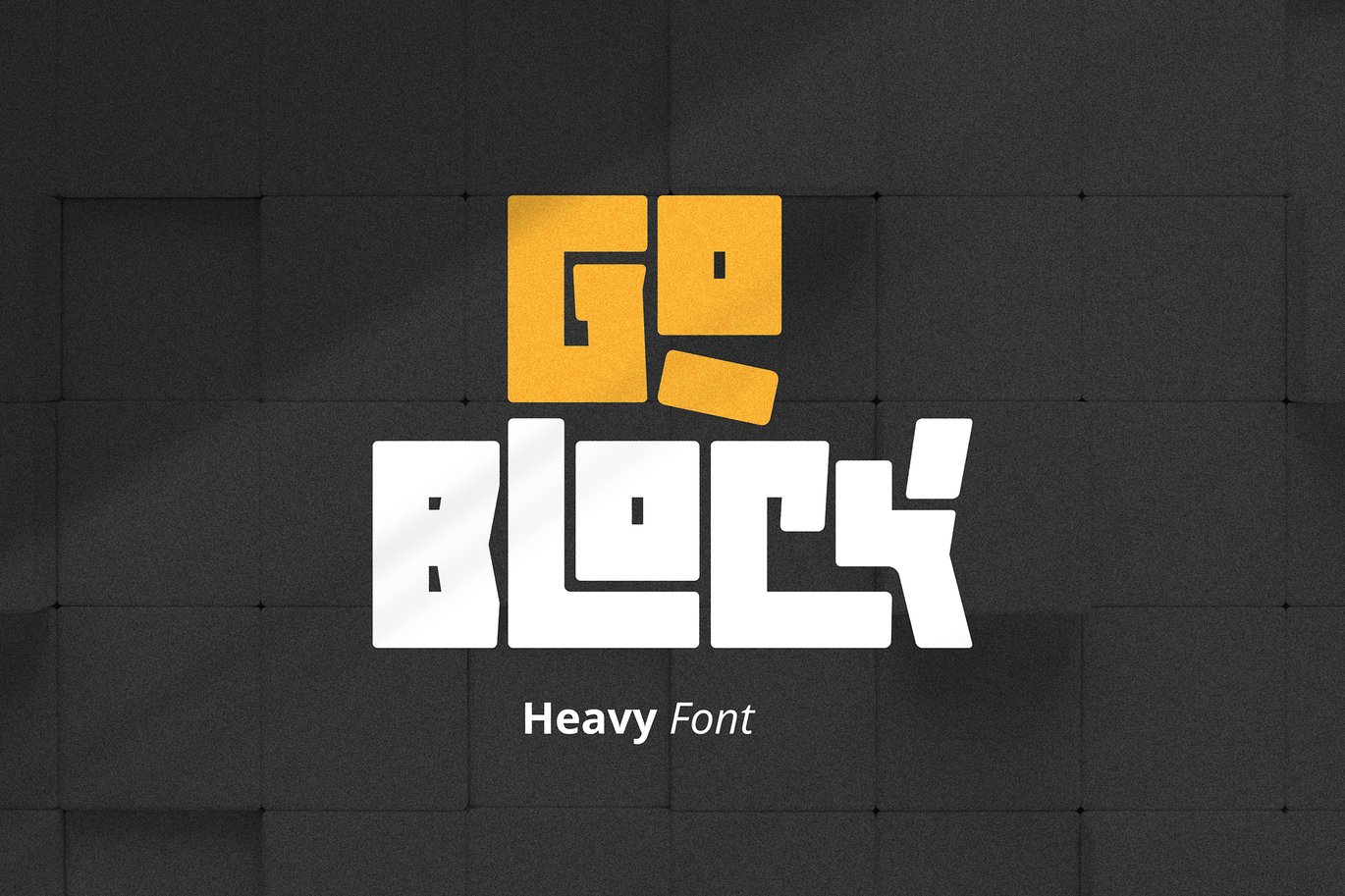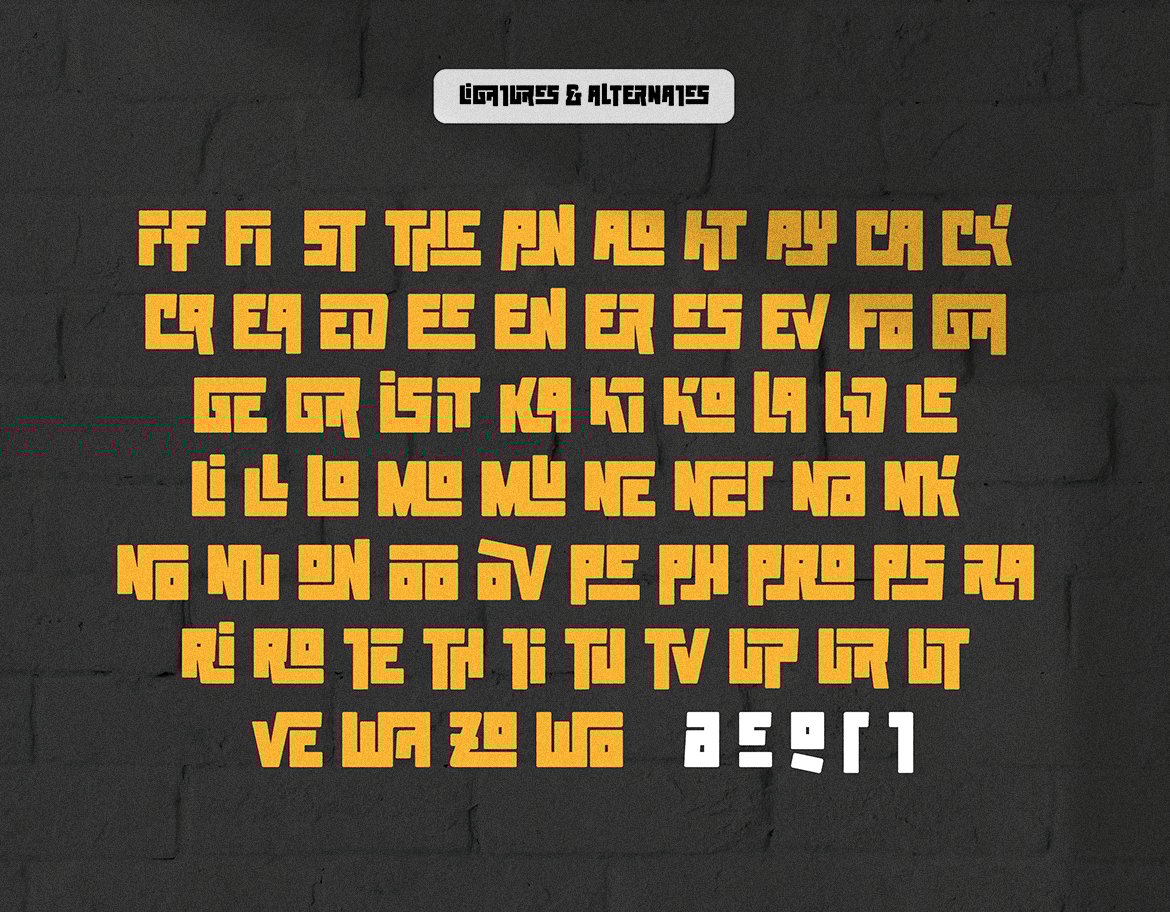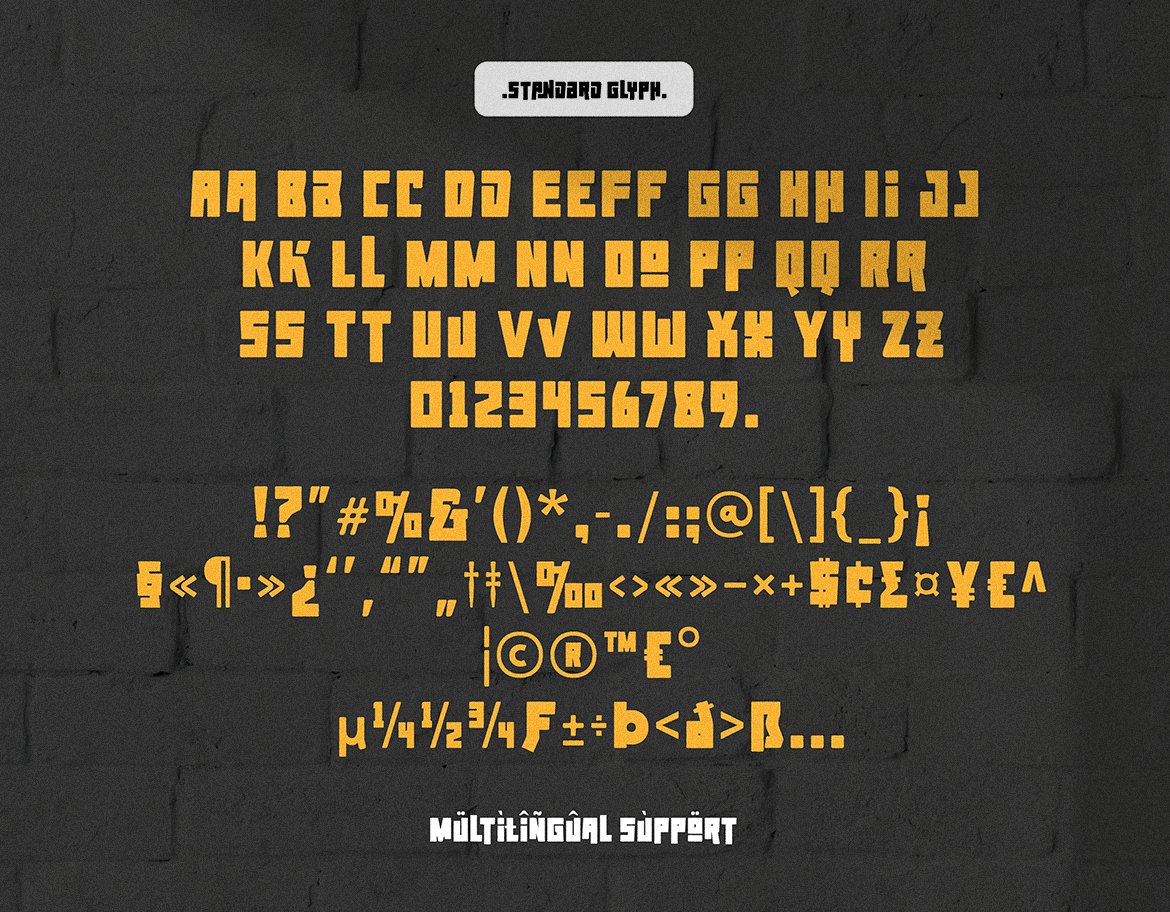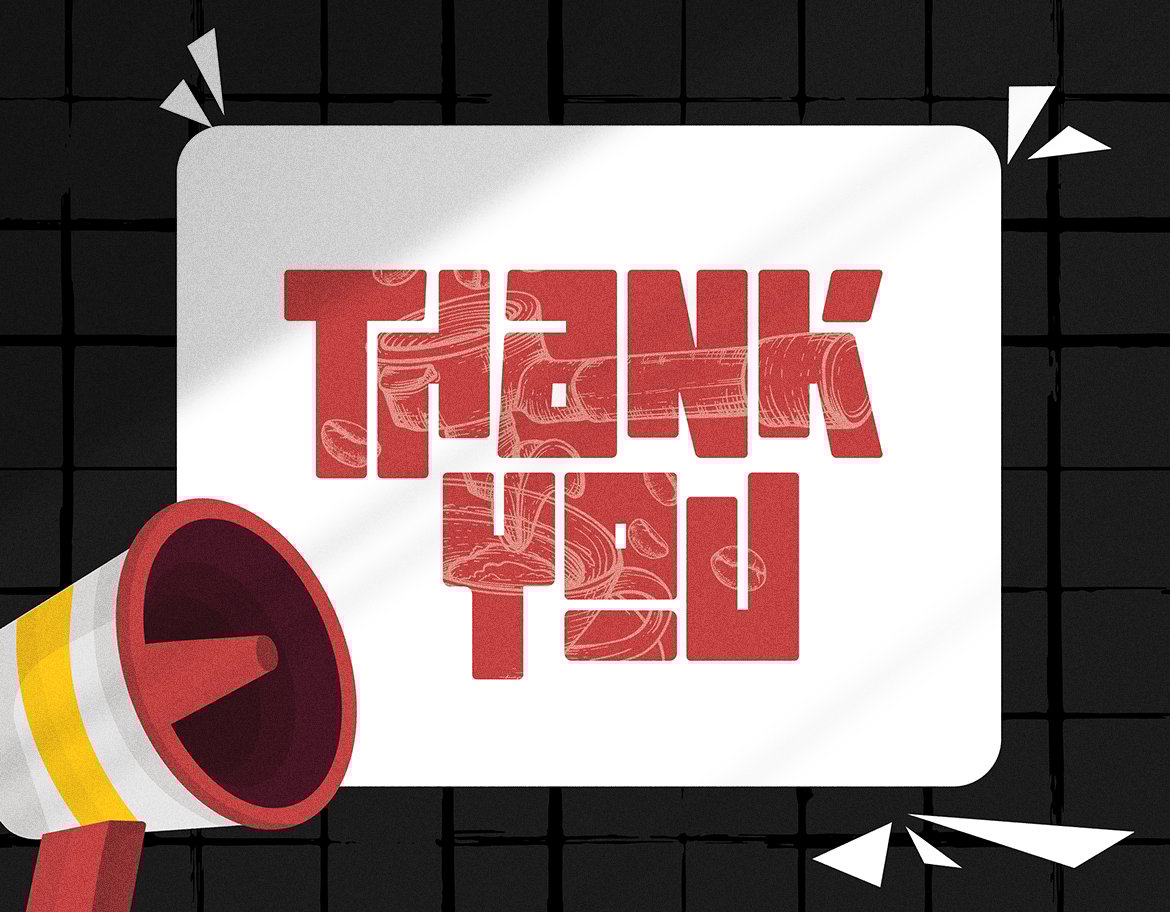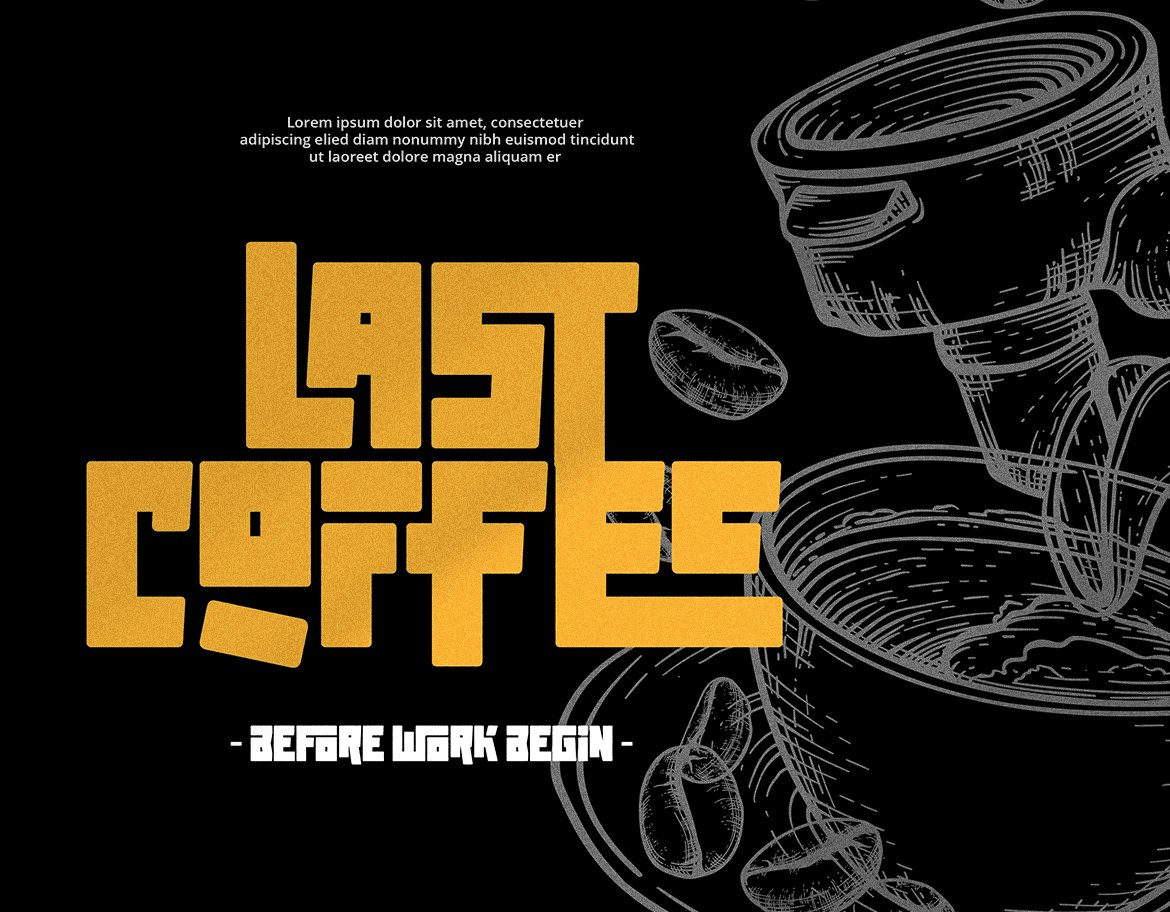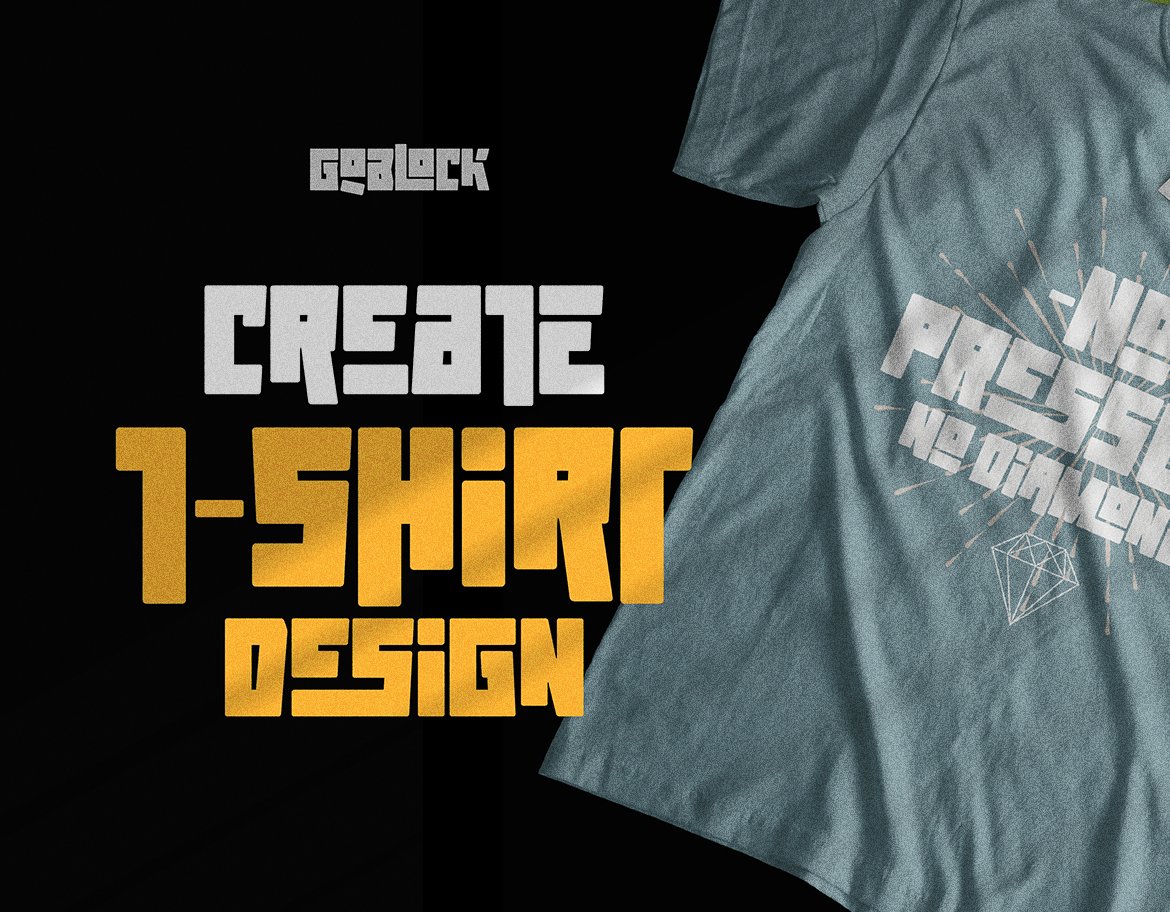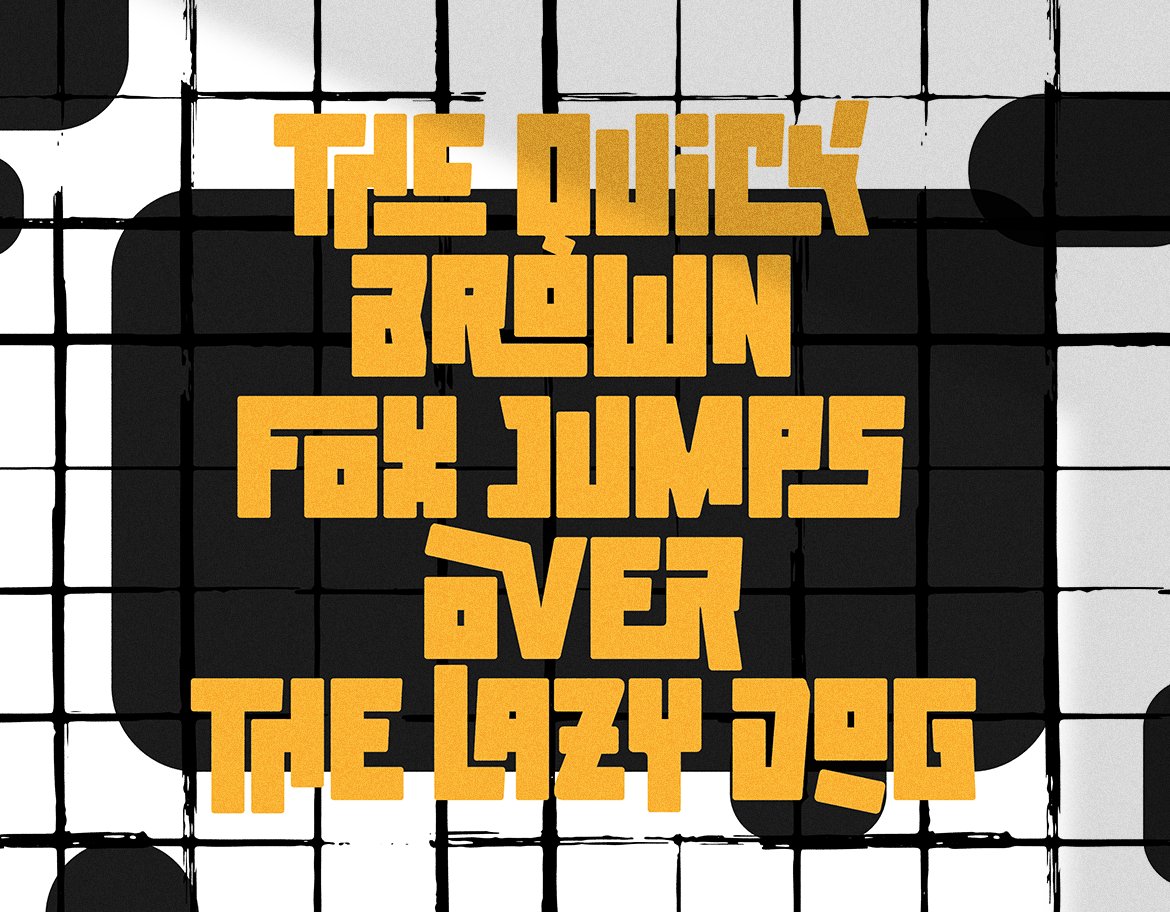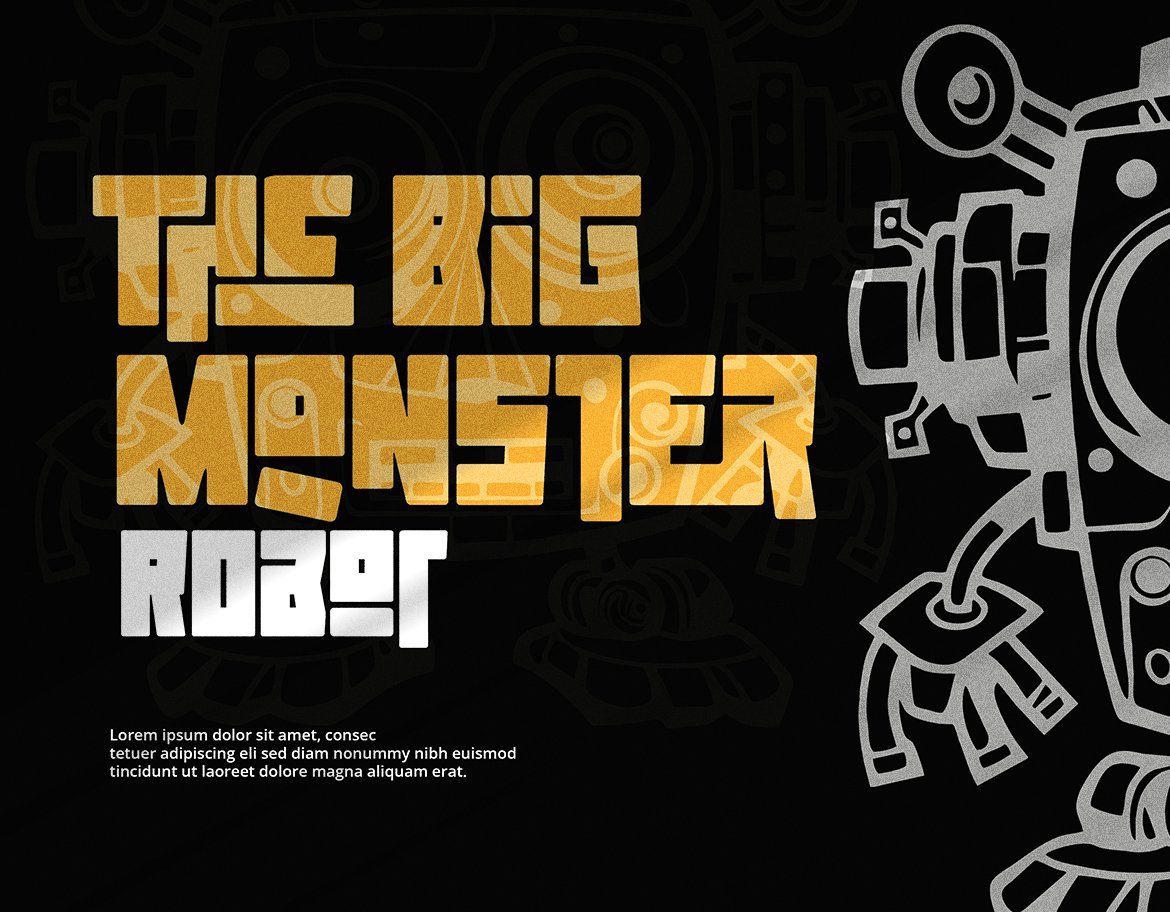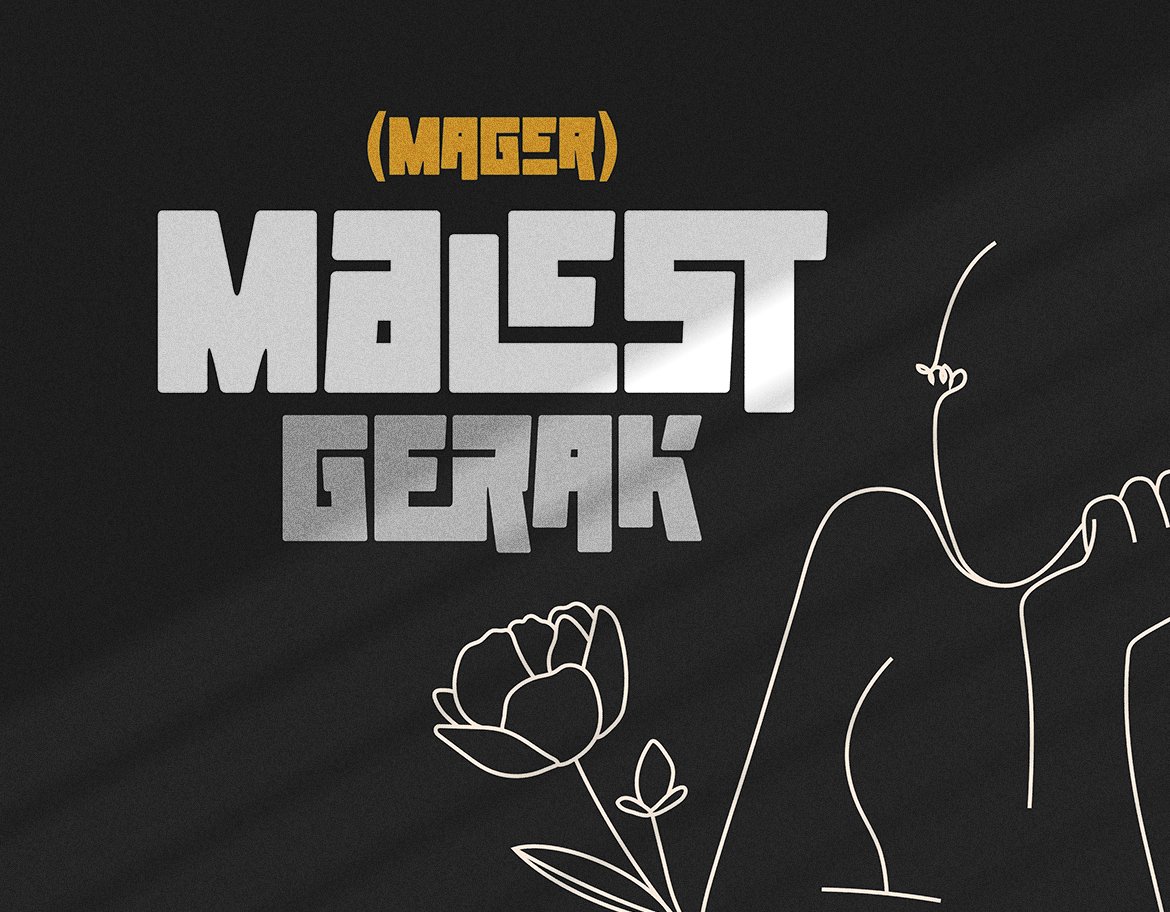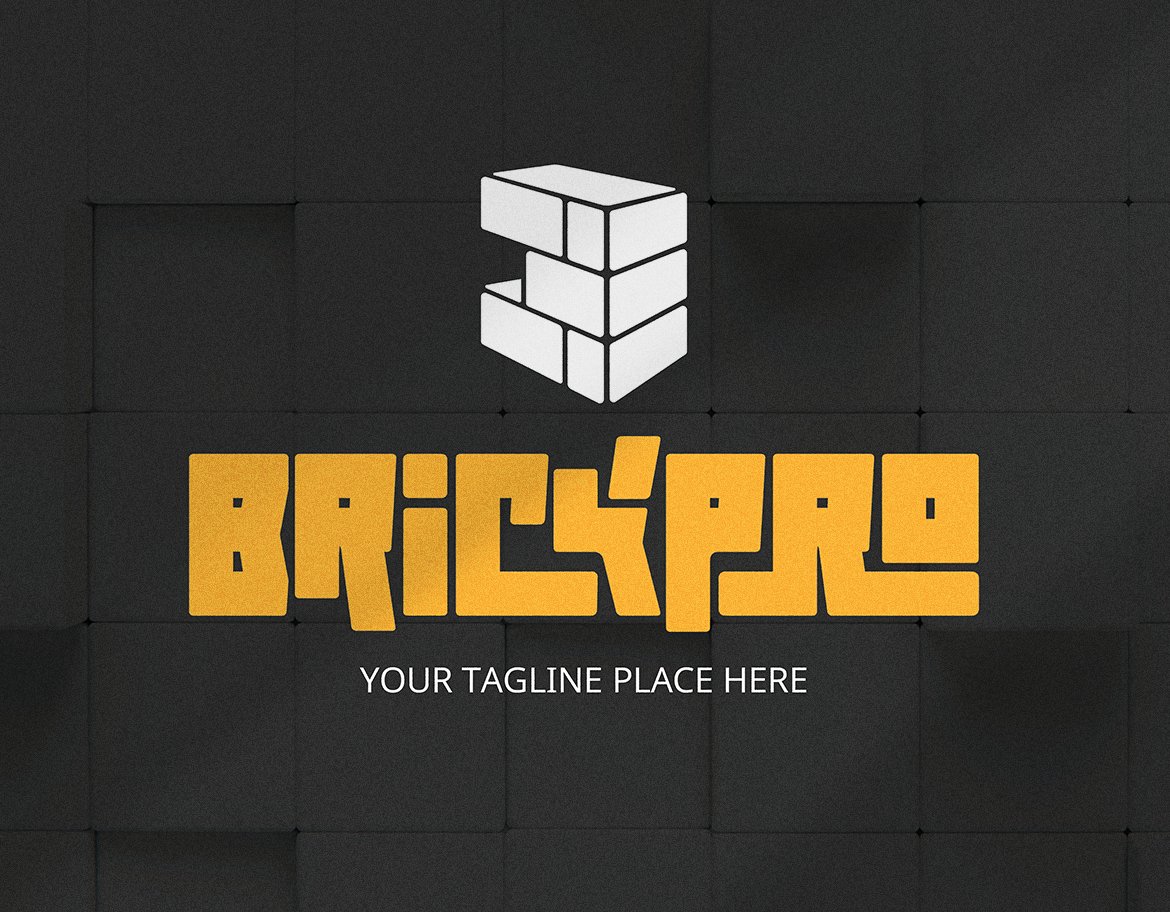
Goblock – Heavy Font
Introducing Goblock – a powerhouse of typography designed to make your brand stand out with unparalleled strength and presence. This heavy and extra-bold font is meticulously crafted to elevate your logo to new heights, leaving a lasting impression on your audience. Goblock commands attention with its bold strokes and robust characters, creating a visual impact that is both striking and memorable. The thick, weighty letterforms exude confidence and solidity, making it the perfect choice for brands that want to convey strength, authority, and a bold identity.
- Basic Latin Glyphs
- Uppercase and Lowercase Letters
- More Alternates & Ligatures
- Numeral and Punctuation
- Currencies